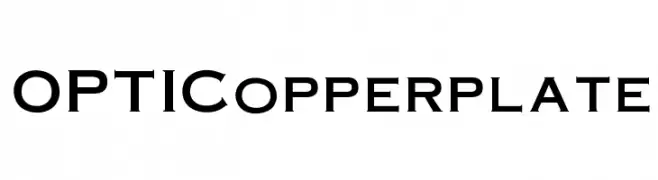
A bold, decorative font with a three-dimensional, shadowed style.
A classic, high-contrast serif font with a semi-compressed style.
An elegant script font with flowing, cursive letterforms and sophisticated style.
An elegant and ornate script font with flowing, cursive letterforms.
A bold, condensed font with tall, narrow letterforms and a modern, impactful style.
A bold, clean font with strong lines and excellent legibility.
A bold, modern font with clean lines and a professional appearance.
A bold, impactful font with thick, uniform strokes and a strong visual presence.
A bold, modern font with thick, uniform strokes for strong visual impact.
A tall, narrow font with a modern, elegant design and minimal contrast.